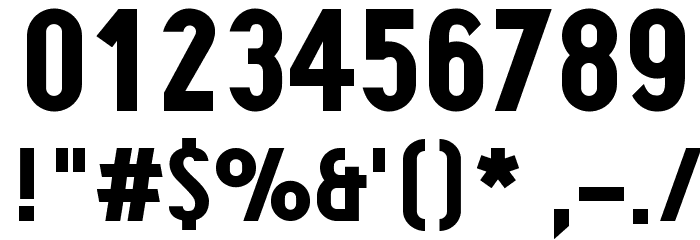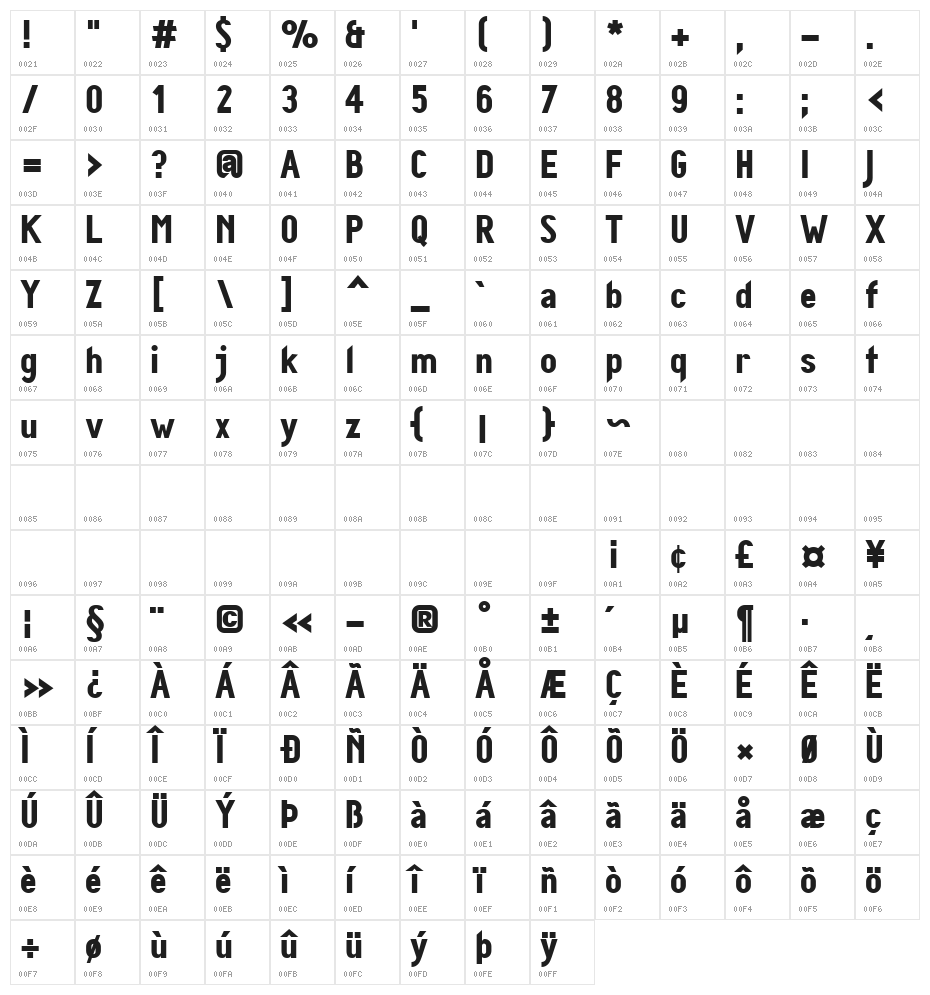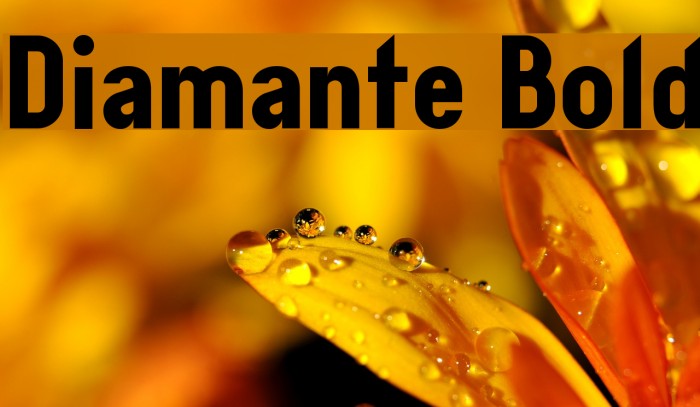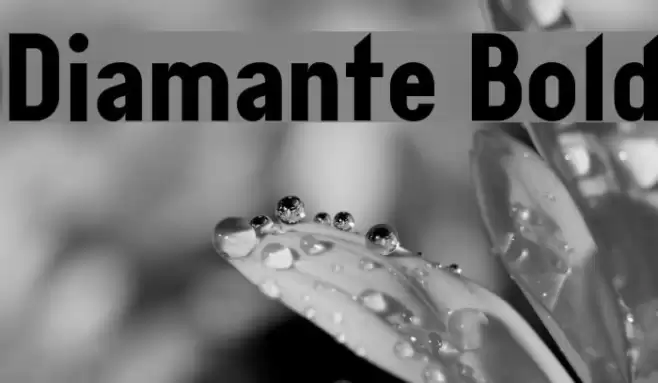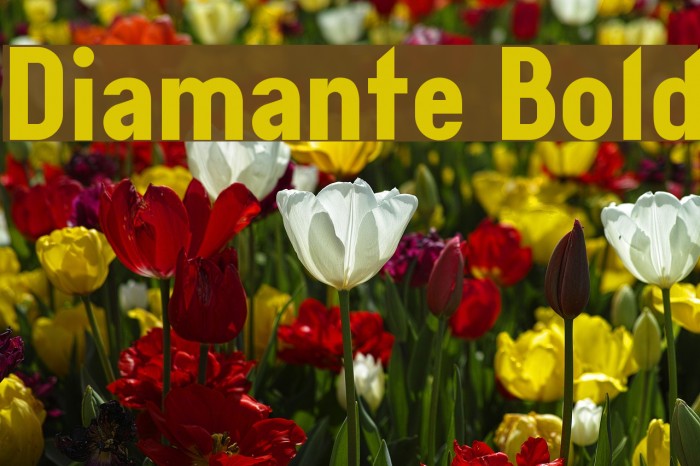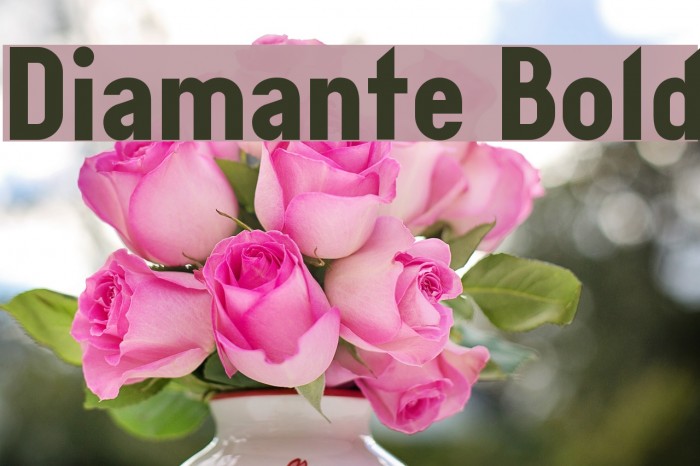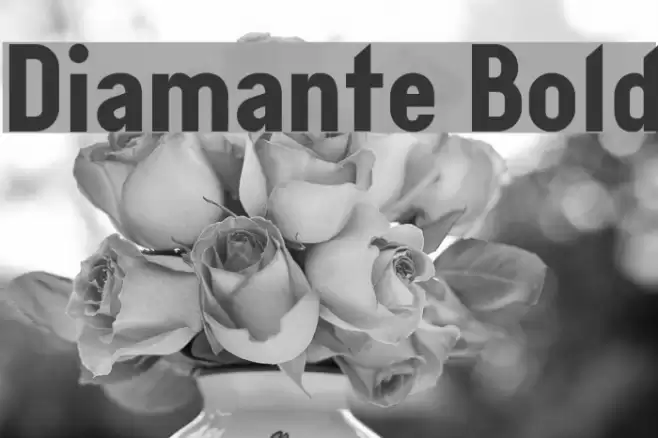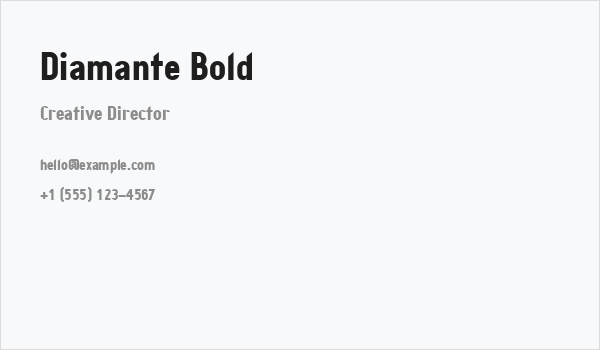
Diamante Bold Font
Diamante Bold Description
This bold typeface features strong, geometric letterforms with a modern and assertive appearance. The characters are uniformly thick, providing a robust and impactful look. The uppercase and lowercase letters maintain a consistent style, with clean lines and minimal embellishments, making it highly legible. The numbers and special characters are designed to match the boldness of the alphabet, ensuring a cohesive appearance across all text. This font is ideal for making a statement, with its powerful presence and clear readability.
| Proposed Projects | Ideal for headlines, posters, branding, and any project requiring a strong visual impact. |